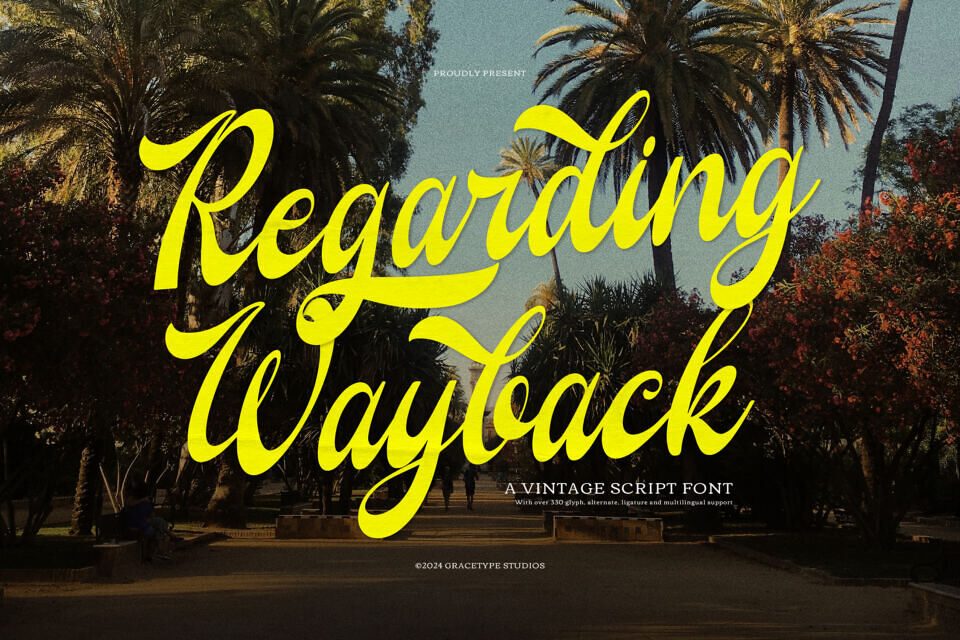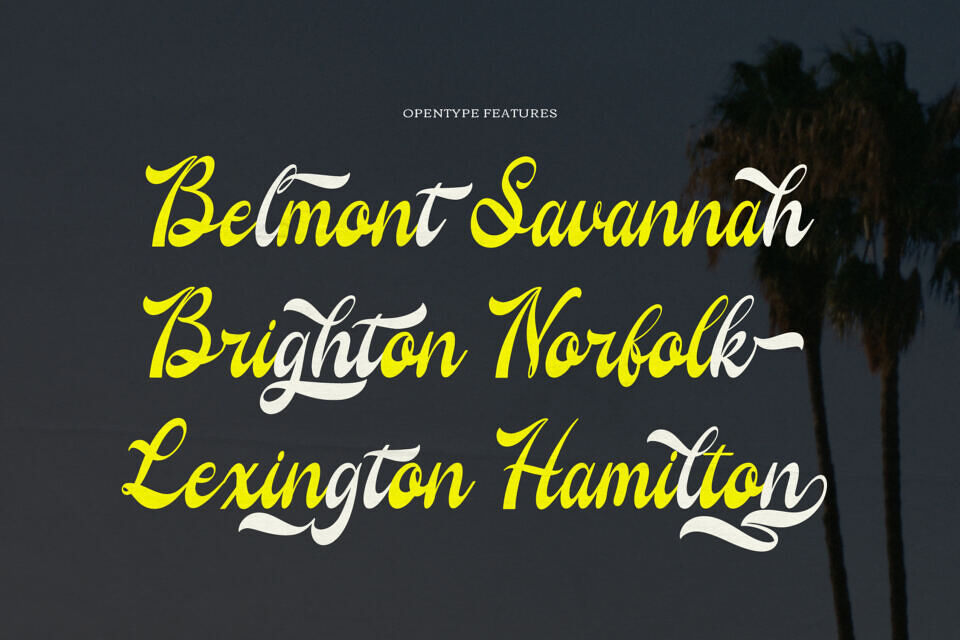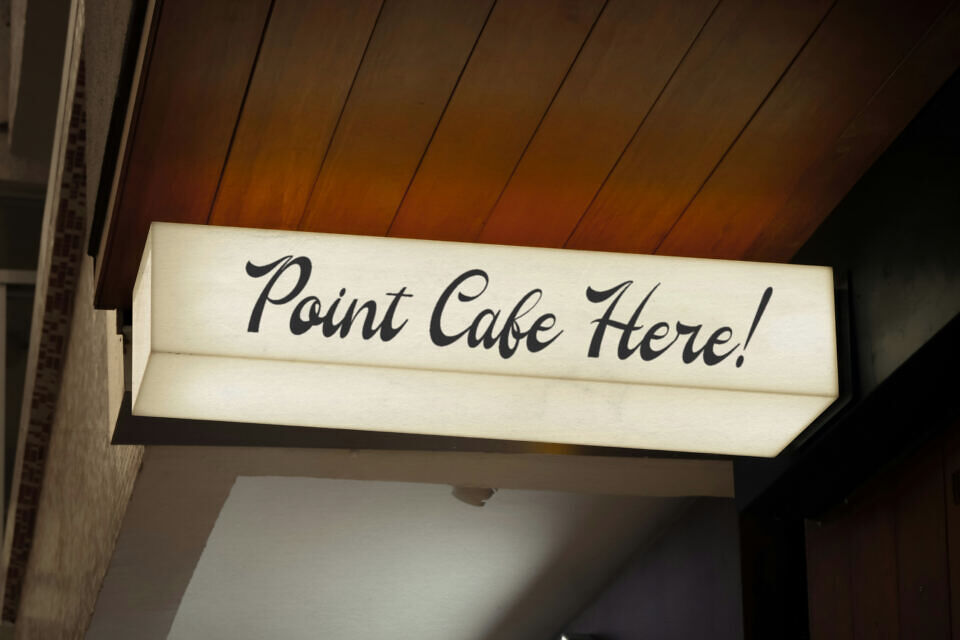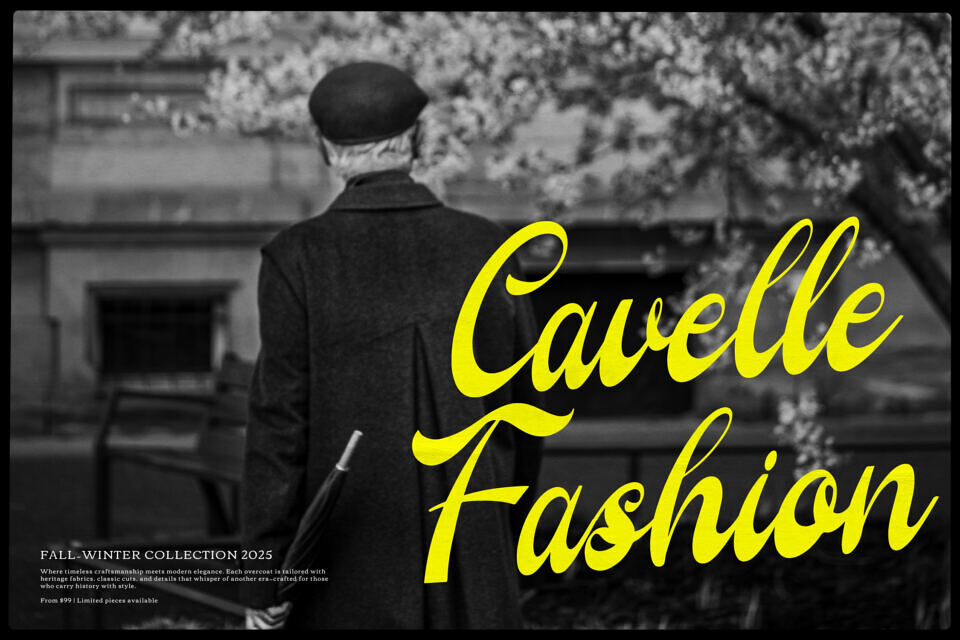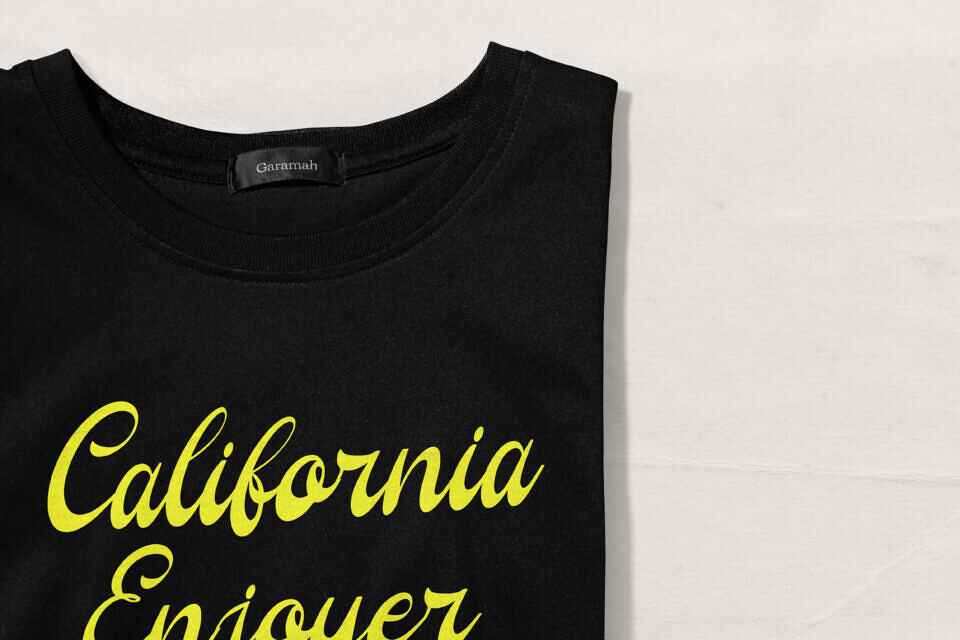
Regarding Wayback is a nostalgic and elegant vintage script font that brings the charm of retro signage, classic advertising, and hand-painted lettering into your modern designs. With its smooth curves, graceful swashes, and over 330 glyphs including alternates and ligatures, this typeface is perfect for logos, packaging, T-shirt prints, posters, and any creative project that needs a touch of vintage flair.
Crafted for versatility and style, Regarding Wayback supports multiple languages and works beautifully across digital and print formats. Whether you’re designing for a café brand, a travel blog, or a retro-inspired campaign, this font adds warmth and authenticity to your work.